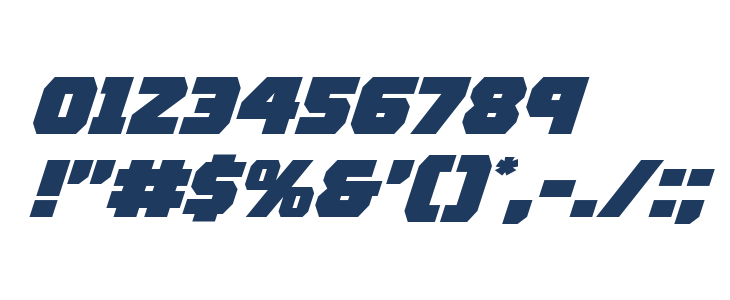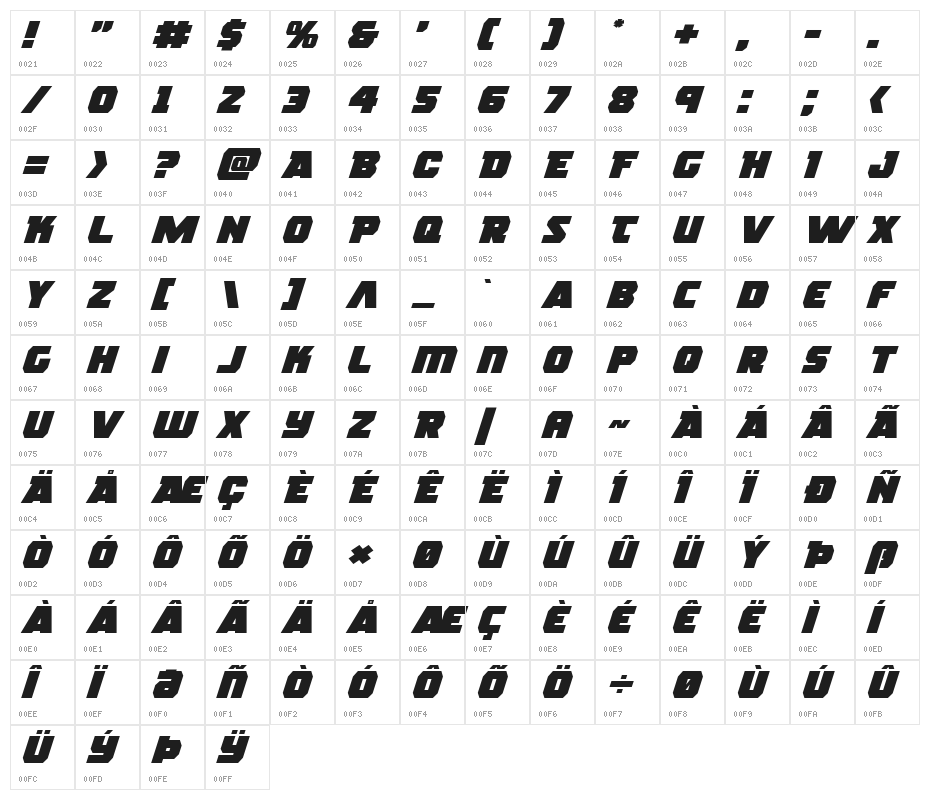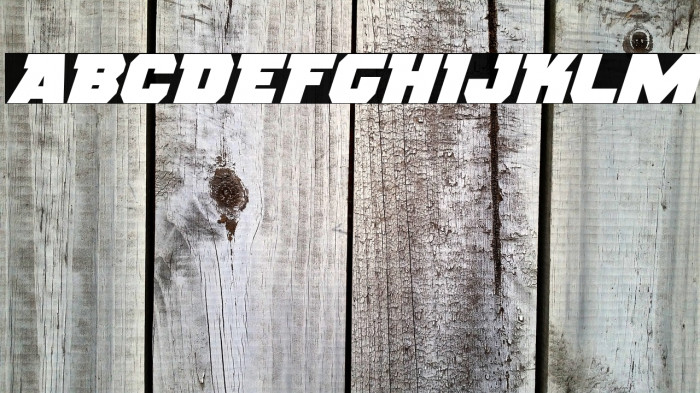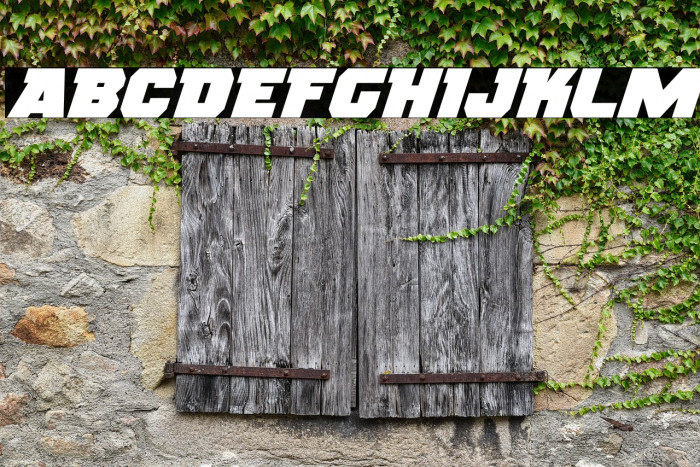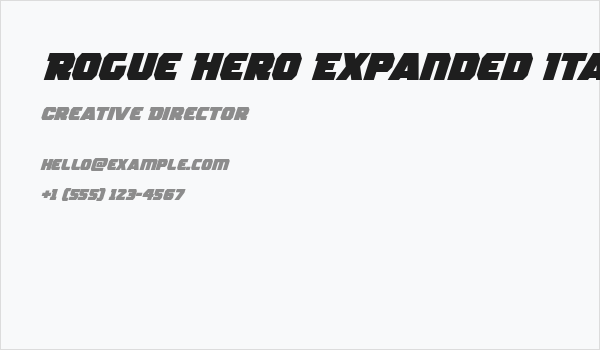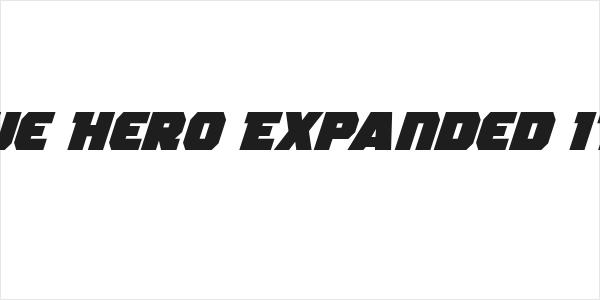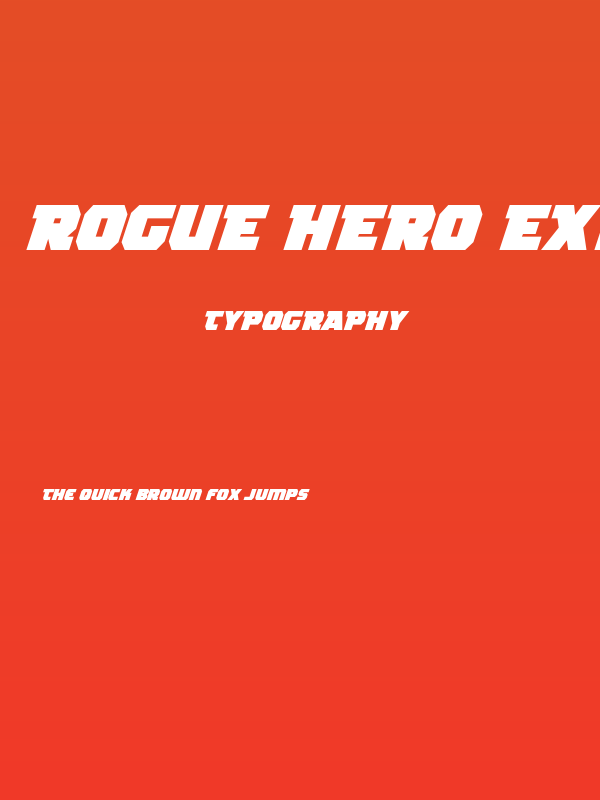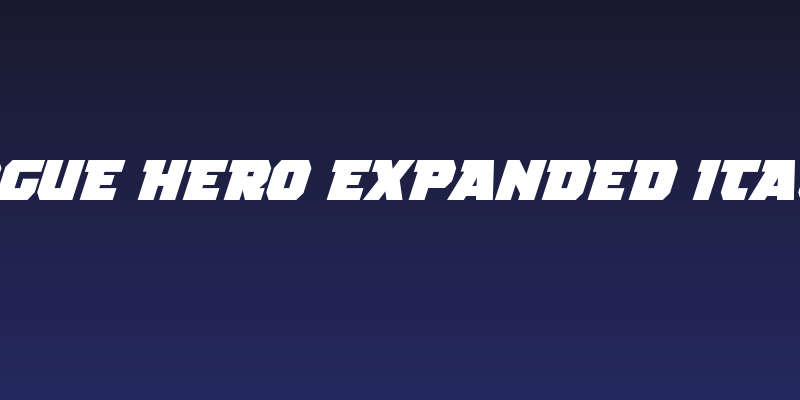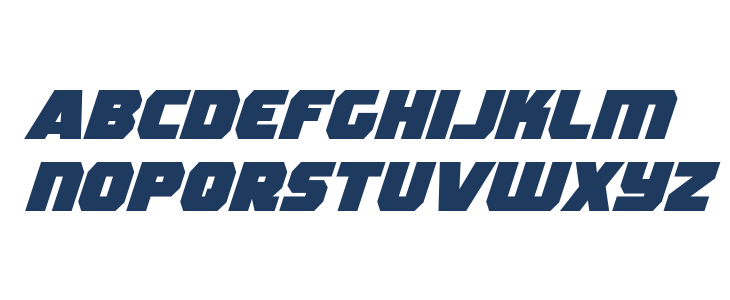
Rogue Hero Expanded Italic Font
Rogue Hero Expanded Italic Description
This font features a bold and dynamic design with an italicized slant, giving it a sense of motion and energy. The characters are expanded, providing a wide stance that enhances readability while maintaining a strong visual impact. The angular and geometric shapes of the letters contribute to a modern and futuristic aesthetic, making it suitable for projects that require a bold statement. The font's heavy weight and expanded width make it ideal for headlines and display purposes, where attention-grabbing text is essential. Its unique style is perfect for branding, posters, and any creative project that seeks to convey strength and innovation.